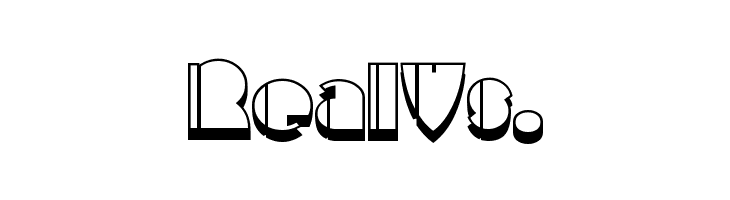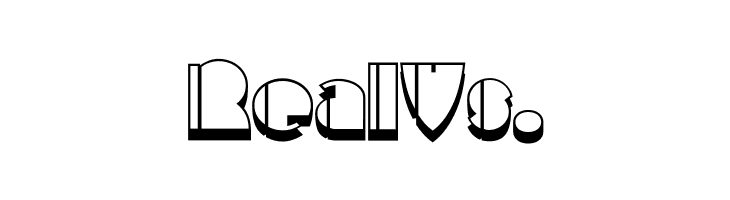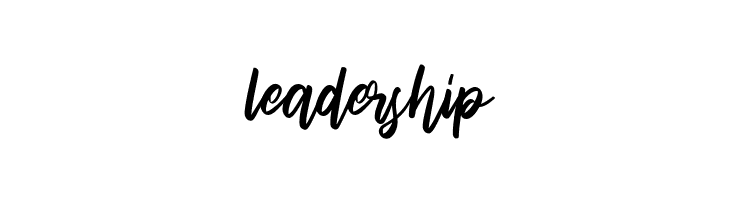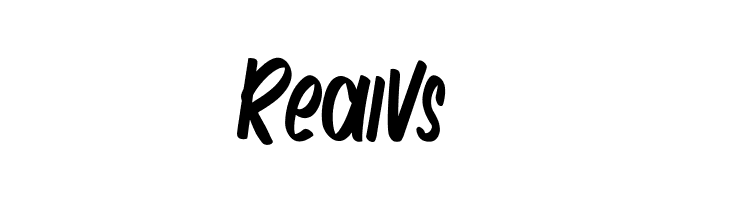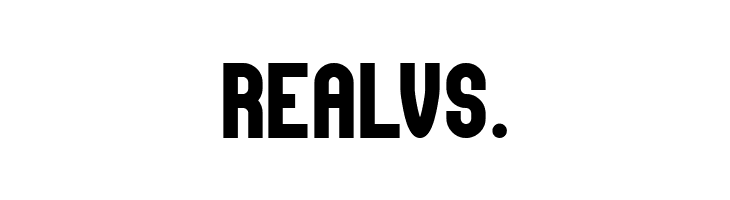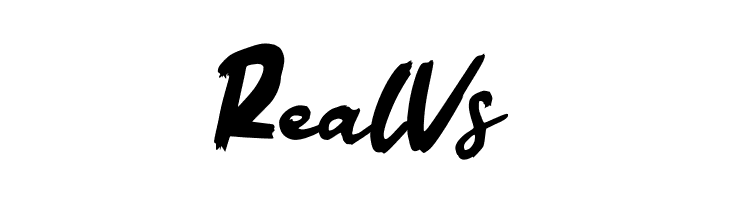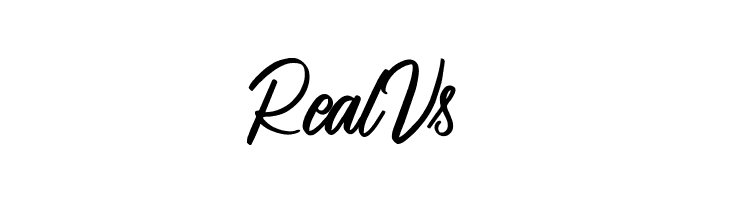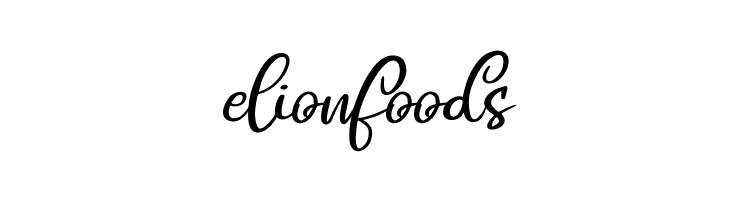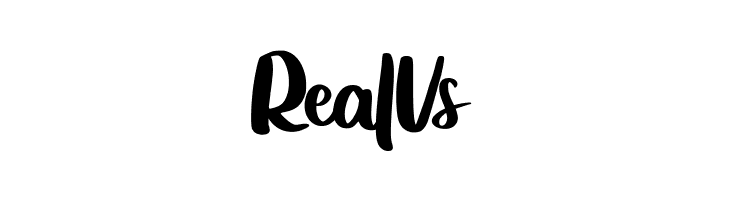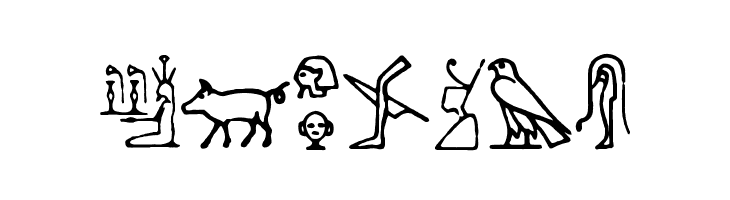
A bold, flowing script font with a dynamic and elegant handwritten style.
A bold, rounded font with a playful and robust appearance.
Hand-drawn hieroglyphic-inspired decorative font with sketchy lines.
Pictorial, hieroglyphic-style decorative font.
A pixelated, blocky font with a retro digital aesthetic.
A playful, handwritten font with tall, narrow letters and uniform strokes.
A bold, geometric font with a 3D shadow effect, ideal for impactful designs.
A bold, geometric font with Art Deco influences and unique cutout designs.
A bold, modern font with a geometric structure and consistent stroke widths.
A dot matrix font with a digital, retro aesthetic.
A tall, condensed font with a modern and sleek appearance.
A sophisticated, elegant handwritten font with fluid strokes and a natural flow.
A bold, geometric font with a 3D shadow effect, perfect for eye-catching designs.
A bold, geometric font with high contrast and modern, abstract shapes.
A playful, handwritten font with dynamic strokes and an informal style.
A playful, handwritten font with flowing, interconnected letterforms.
A bold, expressive brush-style font with a hand-painted look.
An ornate and decorative blackletter-style font with intricate flourishes.
A whimsical collection of floral and celestial dingbats with intricate designs.
An ornate and decorative blackletter-style font with intricate flourishes.
Hand-drawn mountain and hill illustrations.
A bold, flowing script font with elegant, interconnected characters.
A bold, handwritten font with a dynamic and playful style.
An elegant, flowing script font with a refined and sophisticated look.
A bold, flowing script font with a modern, playful aesthetic.
A bold, flowing script font with elegant, cursive letterforms.
Decorative illustrated font with Hindu religious and cultural motifs.
A modern, handwritten script font with a casual, elegant style.